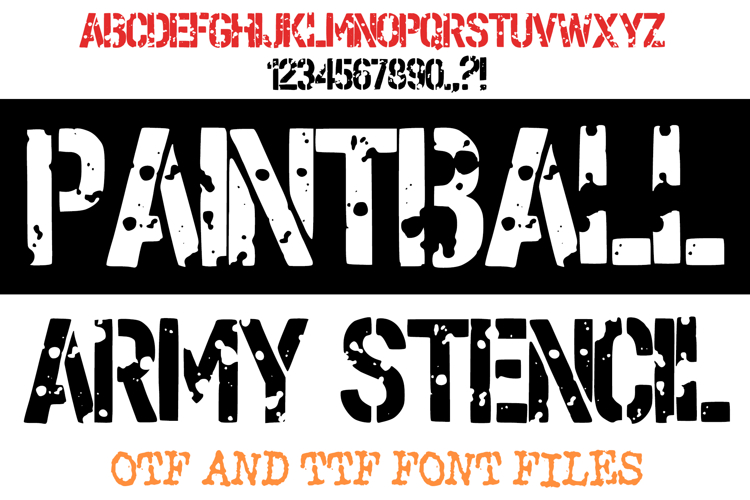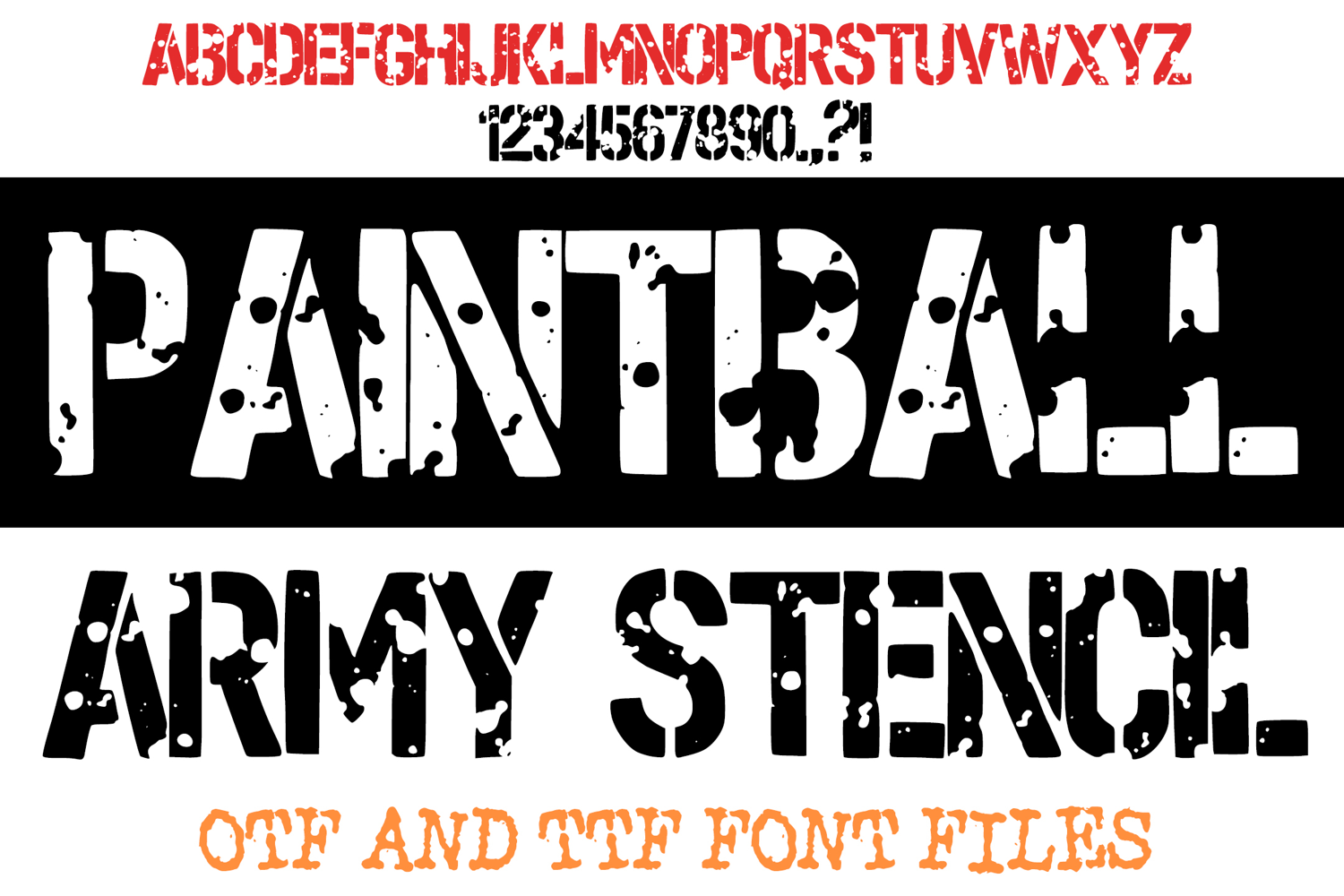
Paintball Army Stencil Font Military Spray Grunge Typeface
Paintball Army Stencil Font is a bold, rugged, and distressed stencil typeface that combines military precision with grunge-style paint splatter effects. Inspired by army lettering and street art, this font is perfect for combat designs, tactical posters, paintball branding, survival games, army t-shirts, urban graffiti, and camouflage-style projects.
The rough texture and spray-paint effect give this font a realistic, battle-worn look that’s ideal for both print and digital use. Whether you’re designing military logos, outdoor adventure graphics, extreme sports ads, or edgy branding, Paintball Army Stencil delivers the strong, commanding presence your project deserves.